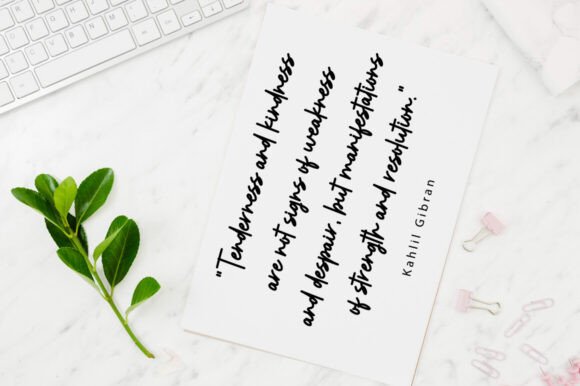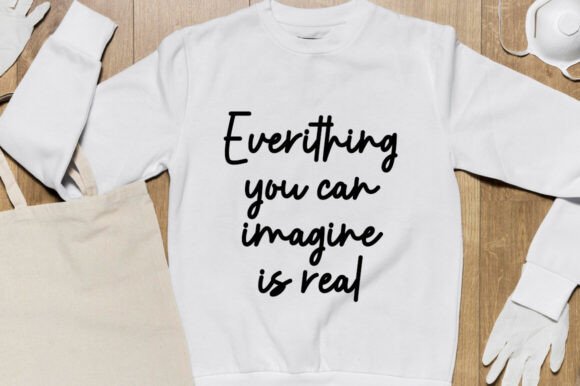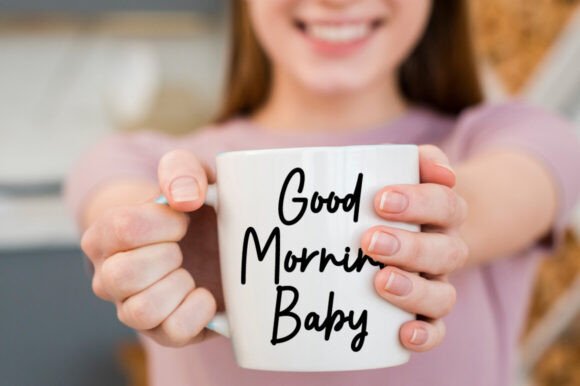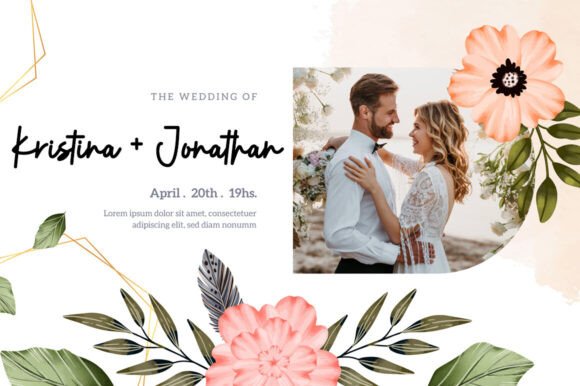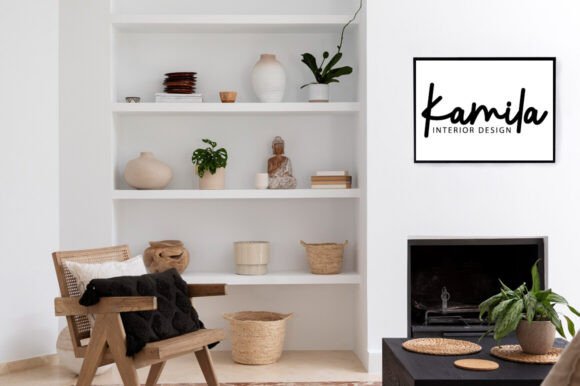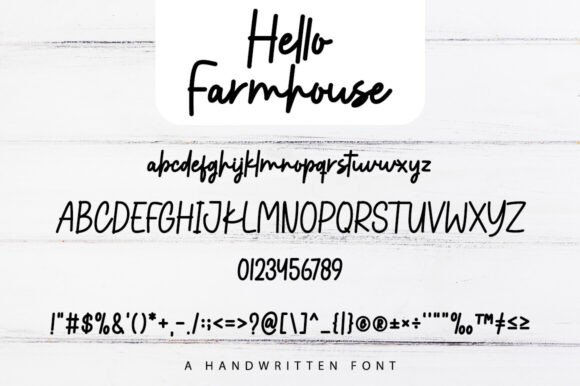
Hello Farmhouse Font: The Sweet and Friendly Handwritten Font for Your Creative Projects
Are you a designer or crafter looking for a font that can add a touch of warmth and personality to your creative projects? Look no further than Hello Farmhouse, a sweet and friendly handwritten font that’s perfect for a variety of applications. In this article, we’ll take a closer look at Hello Farmhouse, its features, and how you can use it to elevate your designs.
What is Hello Farmhouse Font?
Hello Farmhouse is a beautiful, handwritten font that’s designed to bring a sense of joy and playfulness to your designs. With its sweet and friendly appearance, this font is ideal for creating wedding invitations, greeting cards, and other materials that require a personal touch. Whether you’re a professional designer or a DIY crafter, Hello Farmhouse is a versatile font that can help you create stunning designs with ease.
Key Features of Hello Farmhouse Font
So, what makes Hello Farmhouse font so special? Here are some of its key features:
- Sweet and Friendly Appearance: Hello Farmhouse has a warm and inviting appearance that’s perfect for creating designs that require a personal touch.
- Handwritten Style: This font features a beautiful, handwritten style that’s perfect for creating unique and eye-catching designs.
- Cute and Fun: Hello Farmhouse is a fun and playful font that’s ideal for creating designs that require a lighthearted touch.
- Easy to Read: Despite its playful appearance, Hello Farmhouse is easy to read, making it perfect for body text and other applications where legibility is important.
Uses for Hello Farmhouse Font
Hello Farmhouse is a versatile font that can be used for a variety of creative projects, including:
- Wedding Invitations: This font is perfect for creating beautiful, rustic wedding invitations that set the tone for a special day.
- Greeting Cards: Hello Farmhouse is ideal for creating greeting cards for birthdays, holidays, and other special occasions.
- DIY Crafts: This font is perfect for crafters who want to add a personal touch to their projects, such as scrapbooking, journaling, and more.
- Social Media Graphics: Hello Farmhouse can be used to create eye-catching social media graphics, such as Facebook posts, Instagram stories, and more.
Tips for Using Hello Farmhouse Font
Here are some tips for getting the most out of Hello Farmhouse font:
- Pair it with Other Fonts: Hello Farmhouse pairs well with other fonts, such as serif and sans-serif fonts. Experiment with different combinations to find the perfect look for your design.
- Use it for Headings and Titles: This font is perfect for headings and titles, where its playful appearance can really shine.
- Experiment with Colors: Hello Farmhouse looks great in a variety of colors, from bright and bold to soft and pastel. Experiment with different colors to find the perfect look for your design.
Hello Farmhouse font is a sweet and friendly handwritten font that’s perfect for designers and crafters who want to add a personal touch to their creative projects. With its cute and fun appearance, easy readability, and versatility, this font is ideal for a variety of applications, from wedding invitations to social media graphics. Whether you’re a professional designer or a DIY crafter, Hello Farmhouse is a great addition to your font collection.